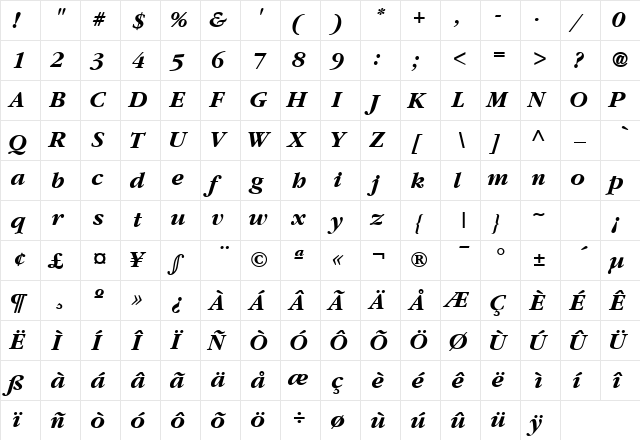
GarryMondrian6 BoldItalicSH
Design Context for GarryMondrian6 Typeface
GarryMondrian6 is a composed and adaptable typeface that performs quietly and consistently across a wide range of design contexts. The dynamic lean of this cut emphasises speed and emphasis in any layout. Its bold stroke weight gives it real presence on the page.
Pro Tip: Try GarryMondrian6 for annotation and caption copy alongside an upright companion — the contrast in angle creates a dynamic but ordered typographic system.